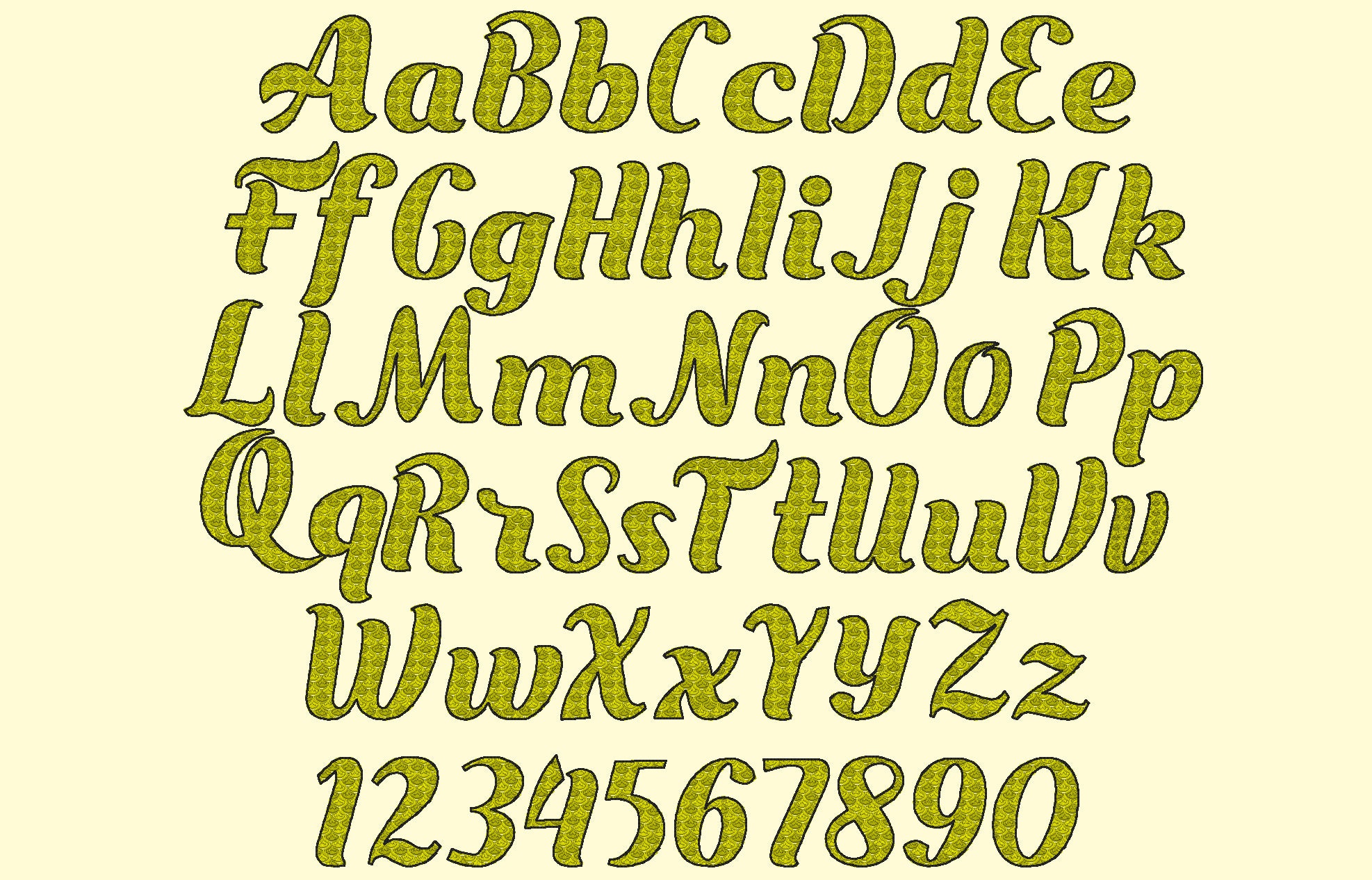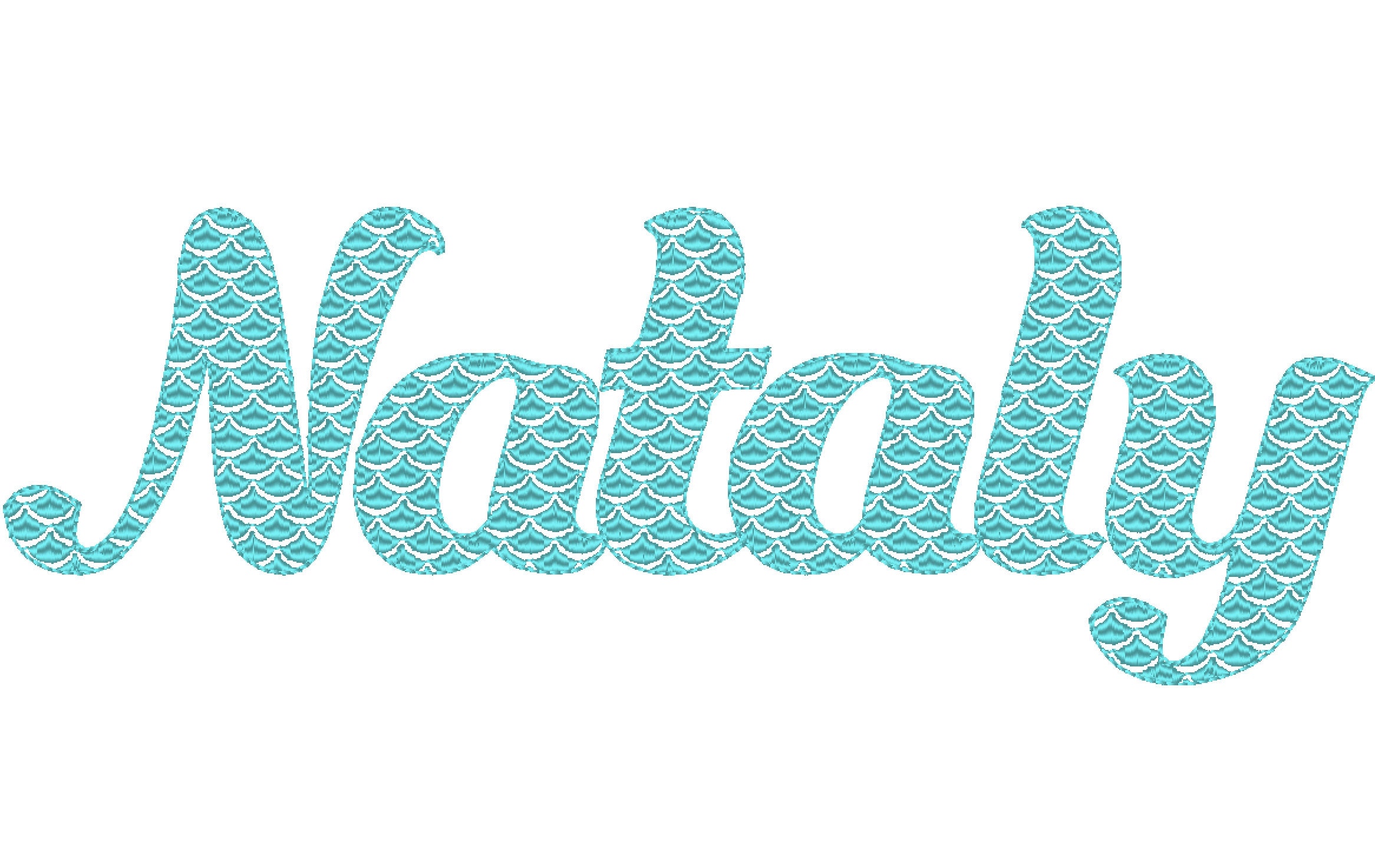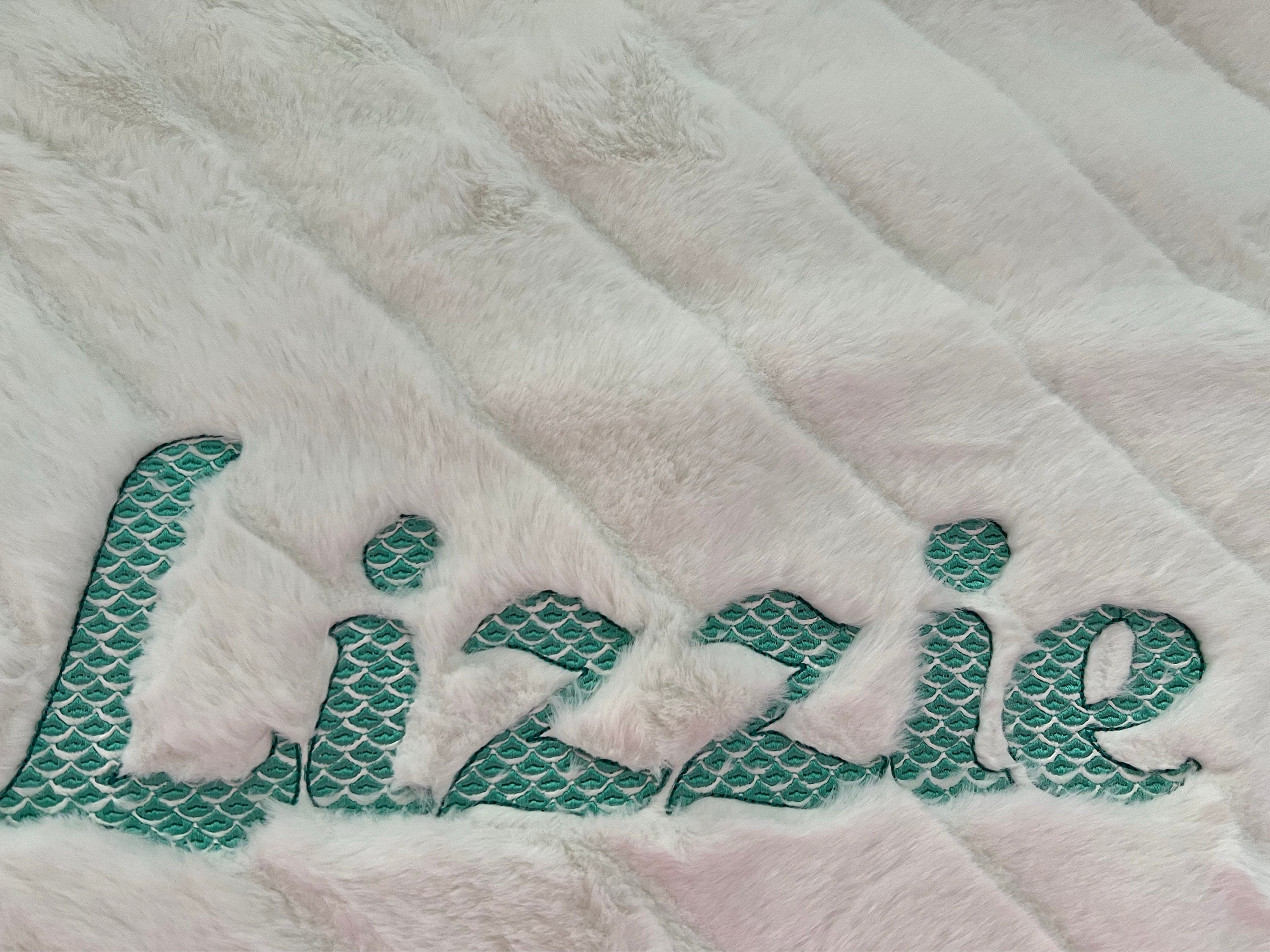
Scallops font, Scalloped Mermaid Monogram FONT alphabet letters machine embroidery designs many sizes awesome mermaid tail kids girl BX font
The font is transparent and has satin stitch scallops, with a bean stitch outline.